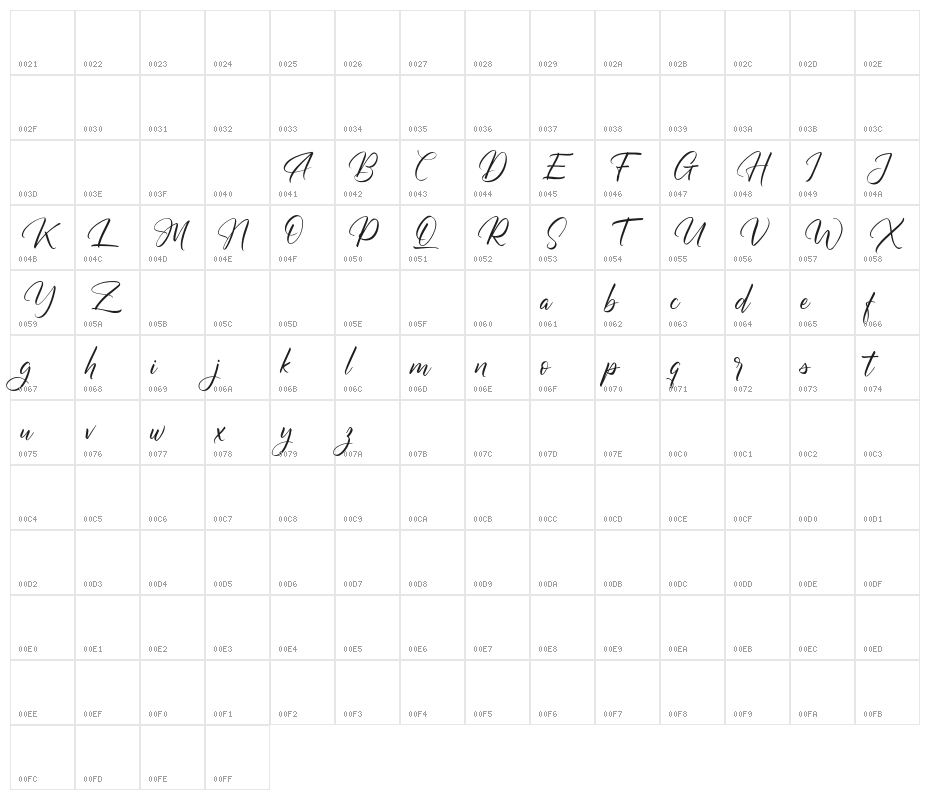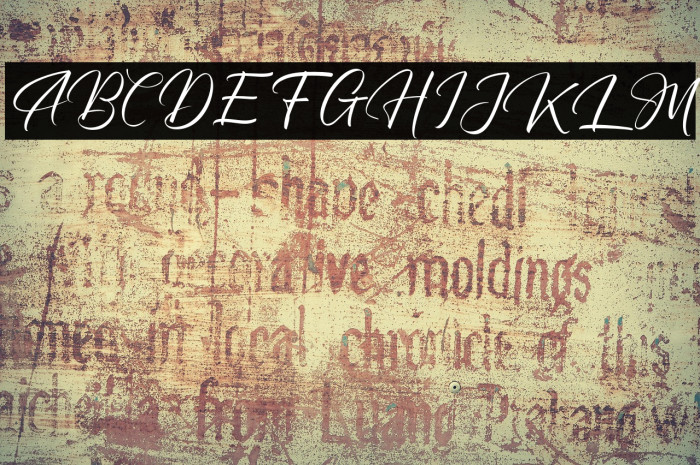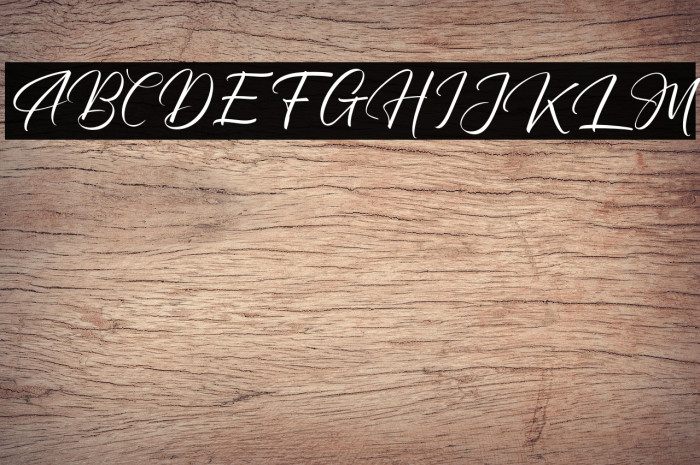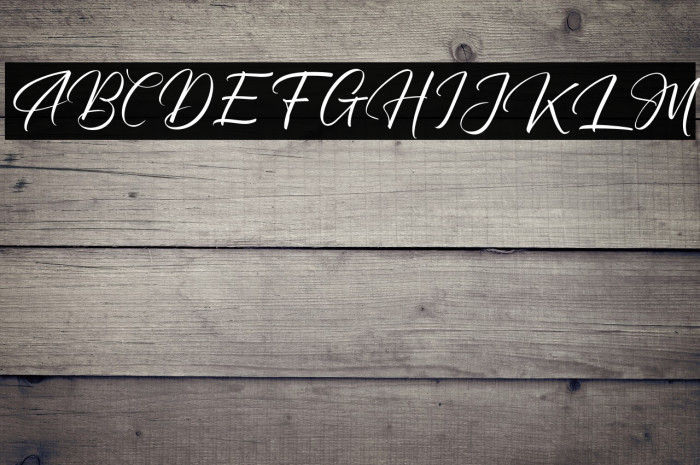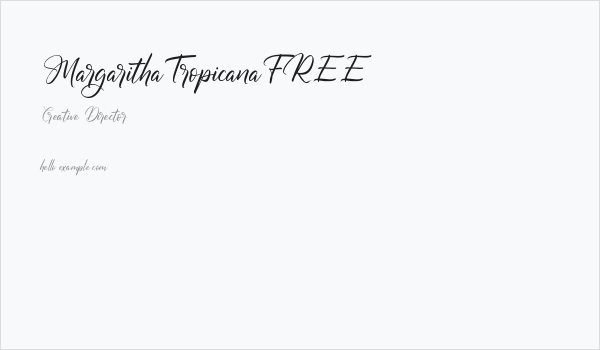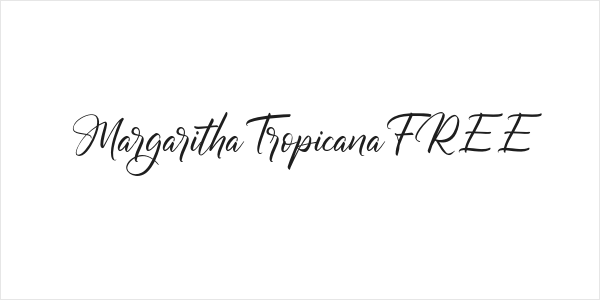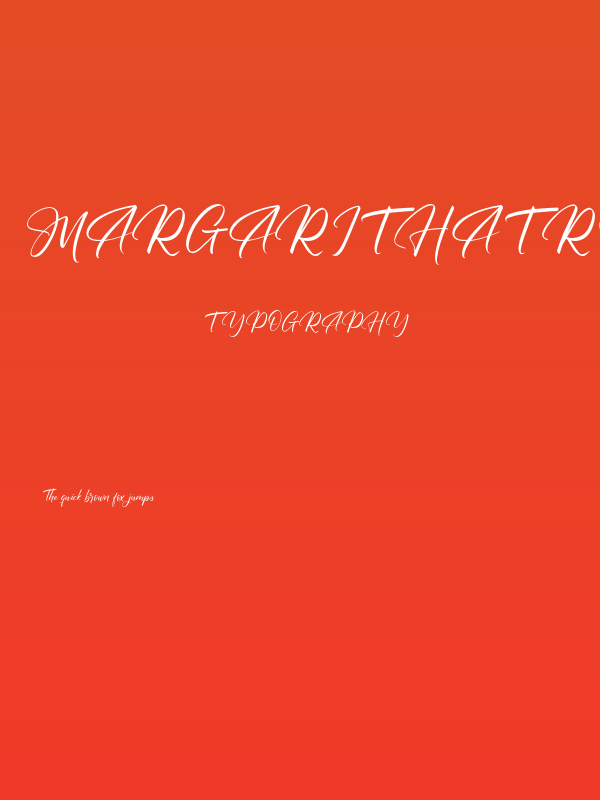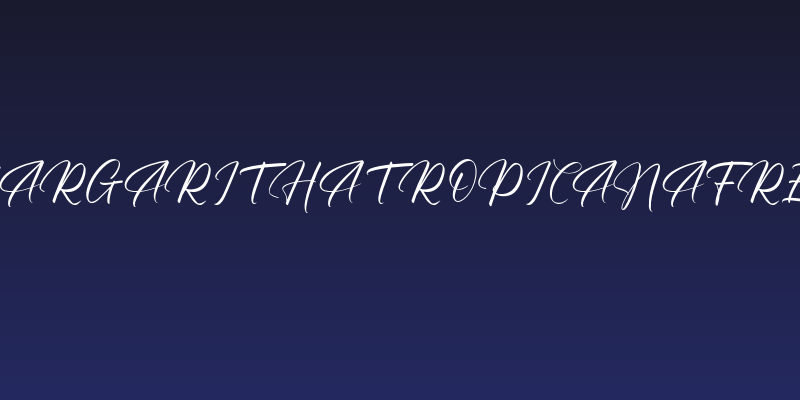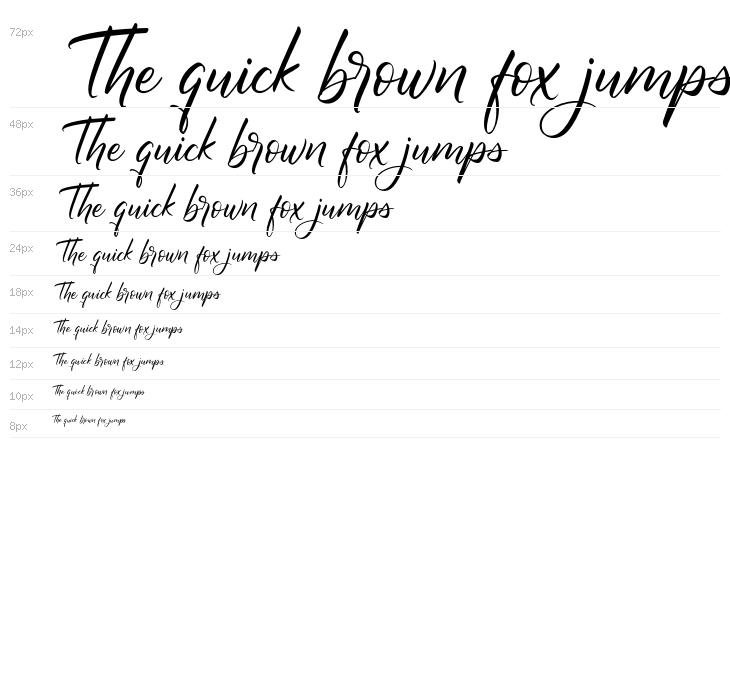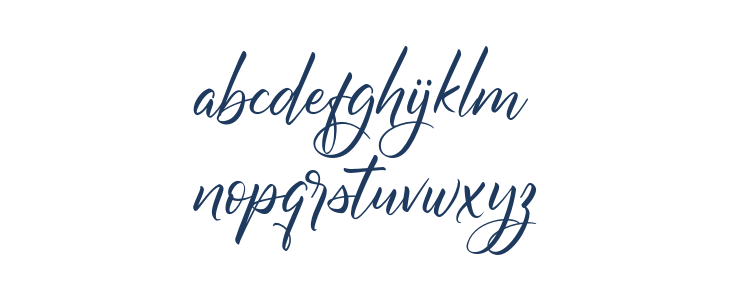
MargarithaTropicanaFREE Font
MargarithaTropicanaFREE Description
This elegant script font features flowing, cursive letterforms that exude a sense of sophistication and grace. The uppercase letters are characterized by sweeping ascenders and descenders, creating a dynamic and fluid appearance. The lowercase letters maintain a consistent style, with smooth curves and delicate connections between characters. This font is perfect for adding a touch of elegance to any design. The overall style is reminiscent of classic calligraphy, making it suitable for formal invitations, branding, and decorative purposes. The font's intricate details and stylish flair make it stand out, while its readability ensures it remains functional.
| Use Case | Invitations, Logos, Decorative text |
| Proposed Projects | Ideal for wedding invitations, luxury branding, greeting cards, and decorative signage. |